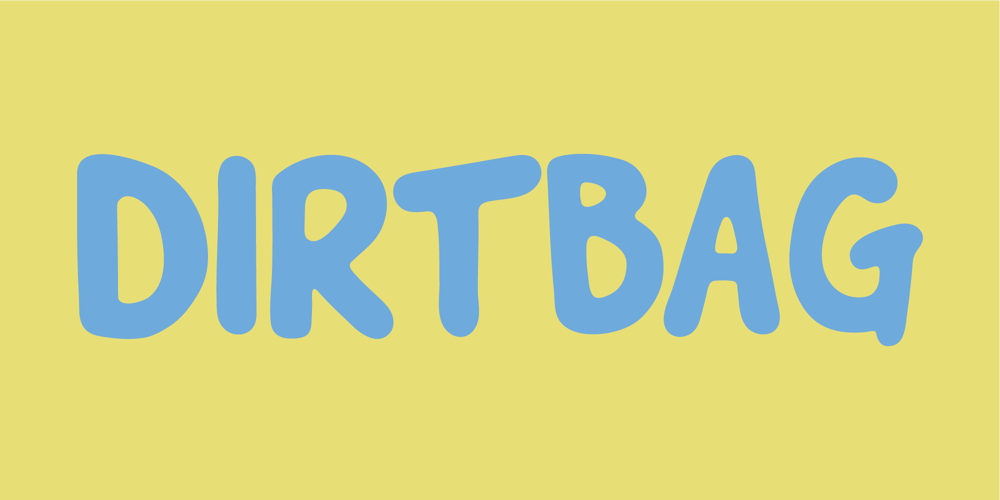
Dirtbag
Dirtbag font
Dirtbag Font Family was designed by Justin Dingbat and published by Just Some Dingbats. Dirtbag contains 1 styles and family package options. Dirtbag. A sans serif typeface no mother is proud of. Although proud to be a fan of Iron Maiden, baby. It’s a font that fits with your Keds and tube socks. If you don’t use this typeface, you don’t know what you’re missing.Basic and Latin character set. A-Z uppercase and small caps characters. 0-9 numerals characters. Additional special characters & more